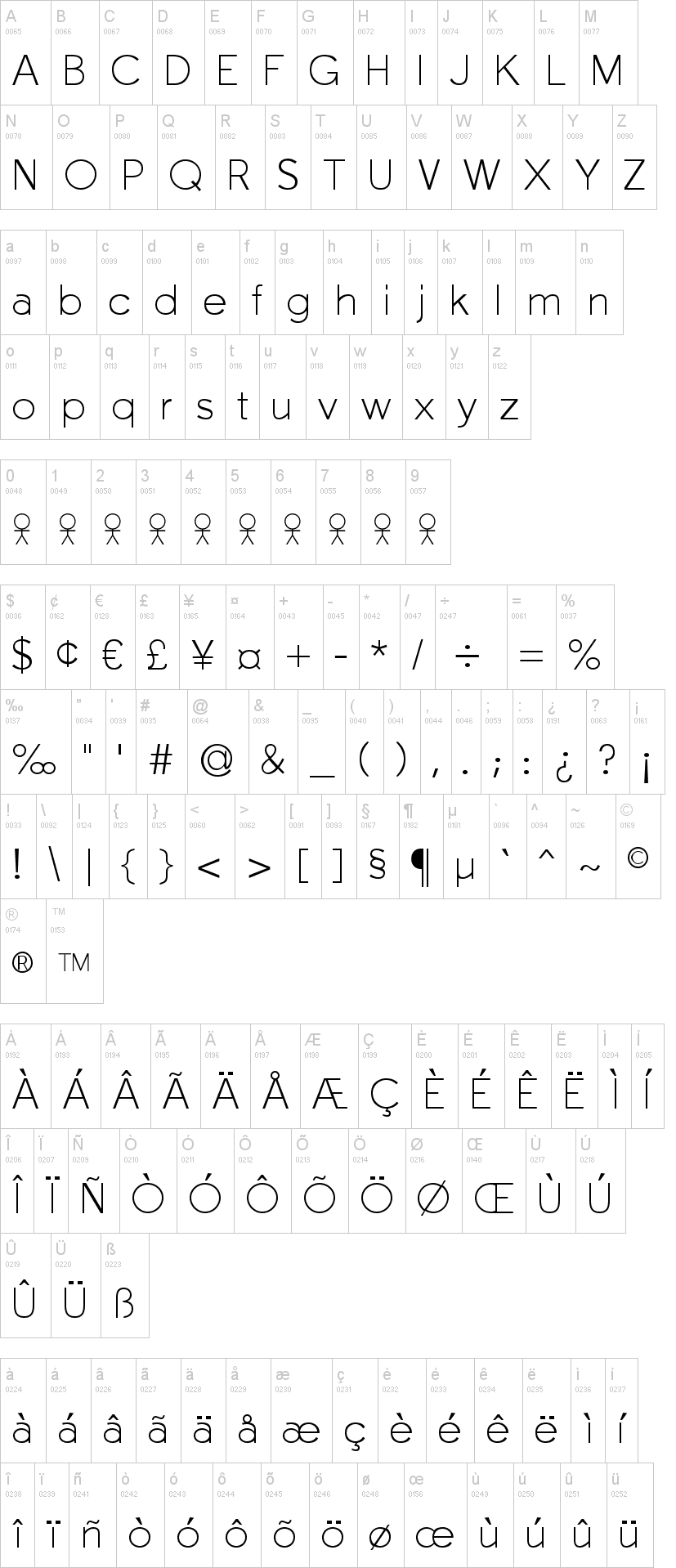
TabarraPro-Light-FFP.ttfTabarraPro-Black-FFP.ttfNote of the authorFonts Swiss-style design made especially for publishing or advertising graphic design, thanks to its range of weights, excellent readability and use.
Numbers available on my website.
Fuentes de estilo suizo especialmente hechas para diseño editorial o diseño gráfico publicitario, gracias a su variedad de pesos, excelente legibilidad y las funciones avanzadas OpenType de la versión comercial.
Números disponibles en mi web.